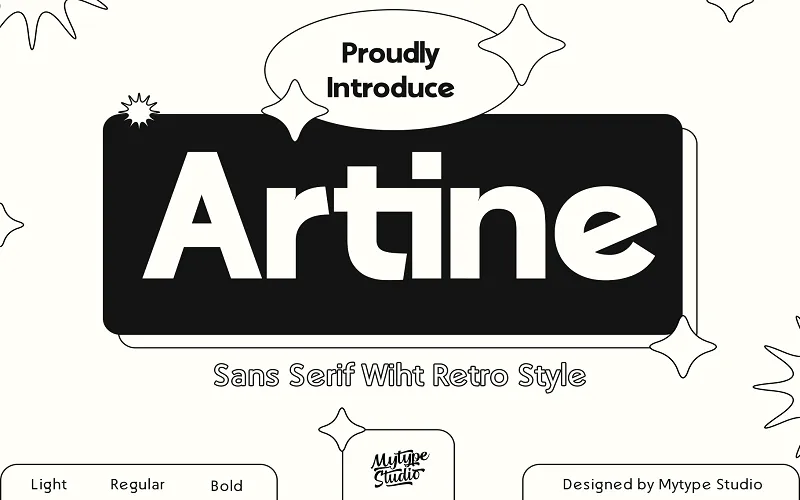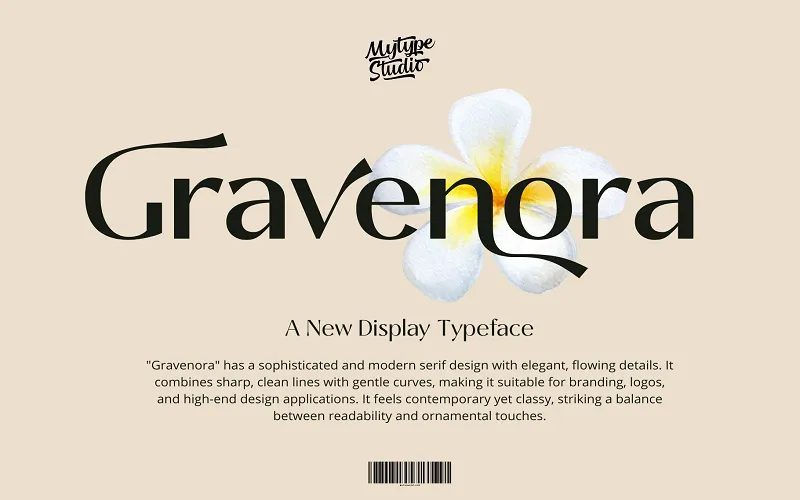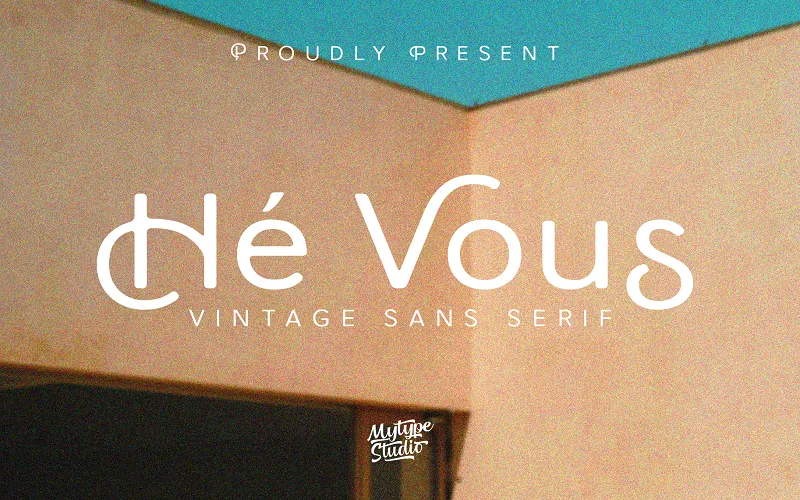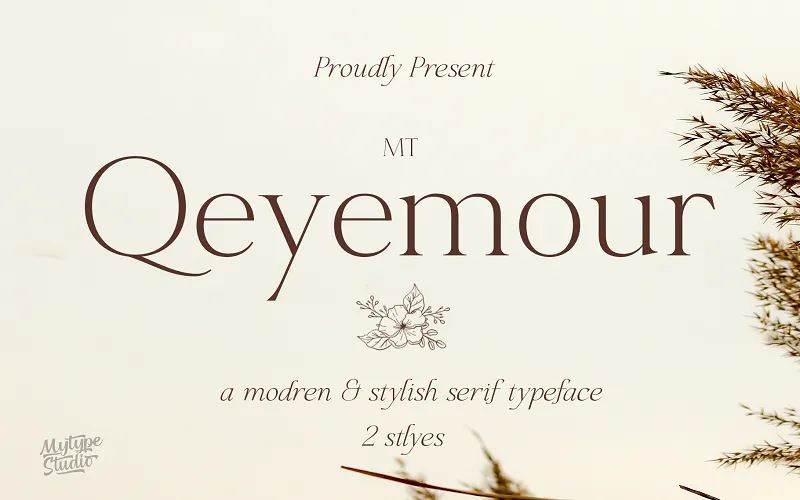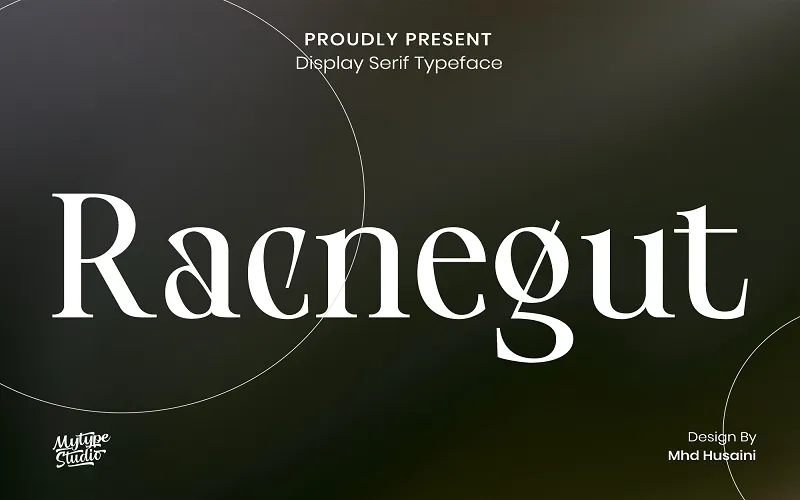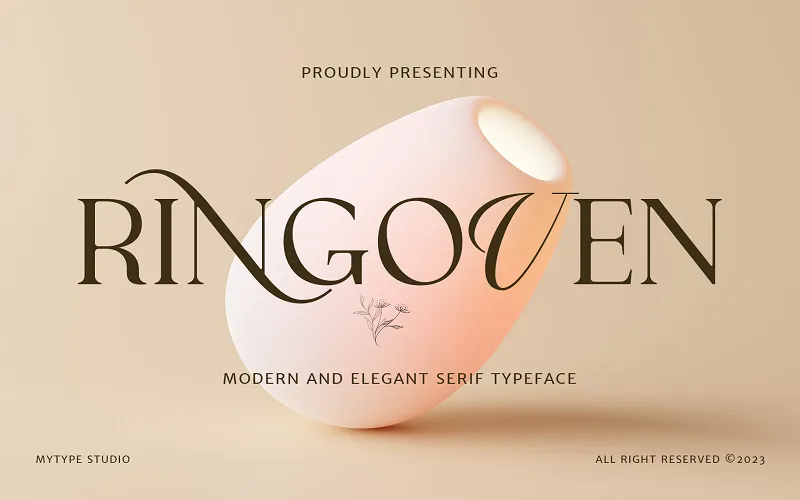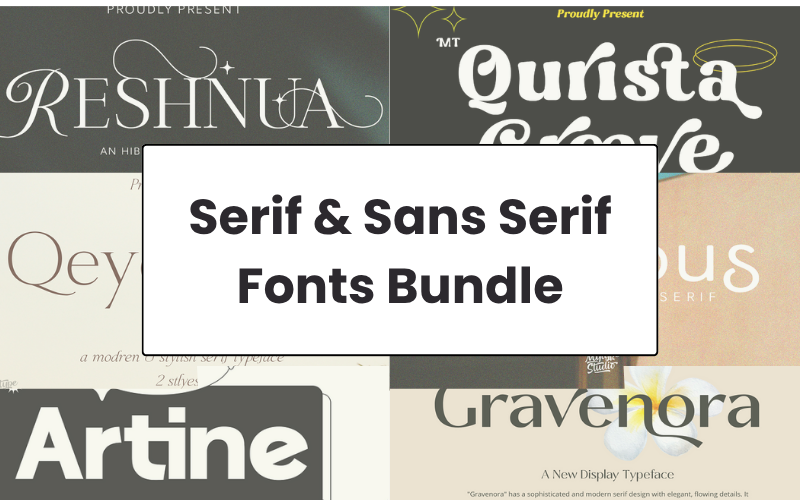
• Includes 21 font families with over 70 versatile styles.
• Ideal for both modern and timeless designs.
Serif & Sans Serif Font Bundle
The font bundle is a premium collection of 21 font families and over 70 versatile font styles for your creative projects.
This bundle includes classic and refined font styles ideal for –
• Branding
• Editorial layouts
• UI/UX design
• Packaging
• Social media graphics
• Creative advertising.
The Sans & Sans Serif Font Bundle Includes:
• Artine Family
• Castego
• Ceritakan Display
• Dimensity
• Disans Family
• Duhai
• Forzan Family
• Gotie
• Gravenora
• HeVous
• Humaira
• La Haula
• MT Qeyemour
• MT Qurista Groove
• Qia Display
• Qusta Family
• Racnegut
• Reshnua
• Ringoven
• Slanty Display
• Wsker Family
Sneak Peek Into The Serif & Sans Serif Font Bundle:
Ringoven Serif and sans serif preview image
Reshnua- Sans Serif Font
Raeegut- Cool serif font
Qurista groove sans font
Qeyemour modern sans serif font
La Houla modern sans serif fonts
He Vous Sans serif fonts
Gravenora serif fonts
Ceritakan Display modern sans font
Artine sans serif font